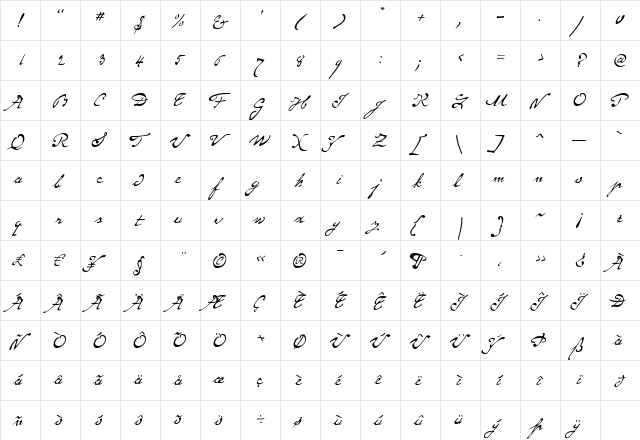
Same-Sex Marriage Script LDO Regular
| Foundry | Luke Owens |
| Designer | Luke Owens |
Design Context for Same-Sex Marriage Script LDO Typeface
Same-Sex Marriage Script LDO flows with the natural rhythm of handwritten lettering, making it ideal for designs that call for warmth and personal expression.
Font Pairing: Combine Same-Sex Marriage Script LDO with a simple geometric sans for maximum contrast — the tension between flowing curves and clean structure is a classic typographic pairing.
Pro Tip: Use Same-Sex Marriage Script LDO for short runs of text — names, titles, or taglines. Extended body copy in script faces tires the eye quickly.